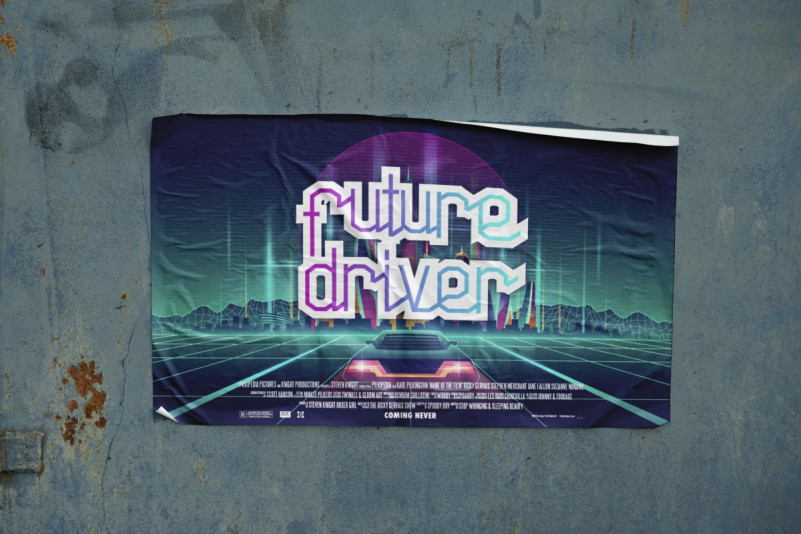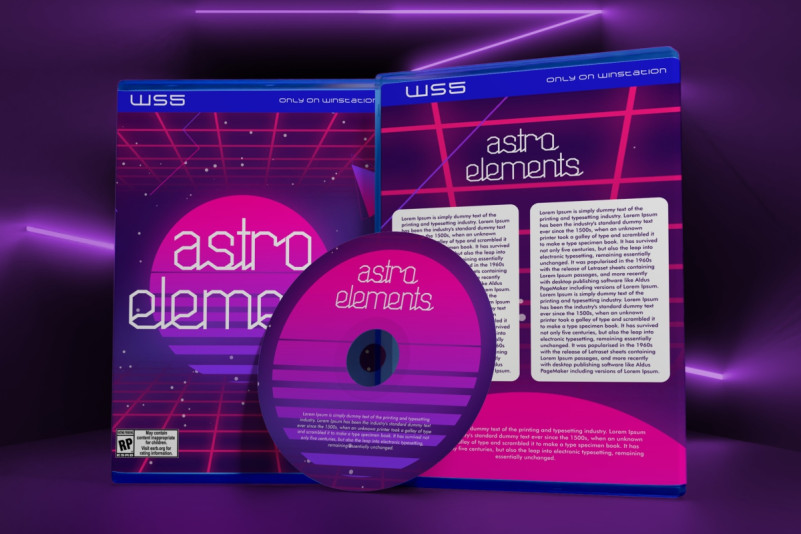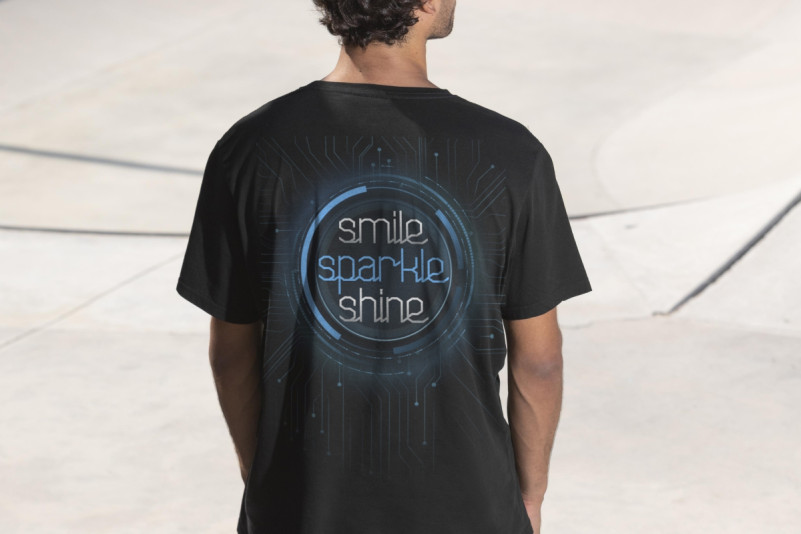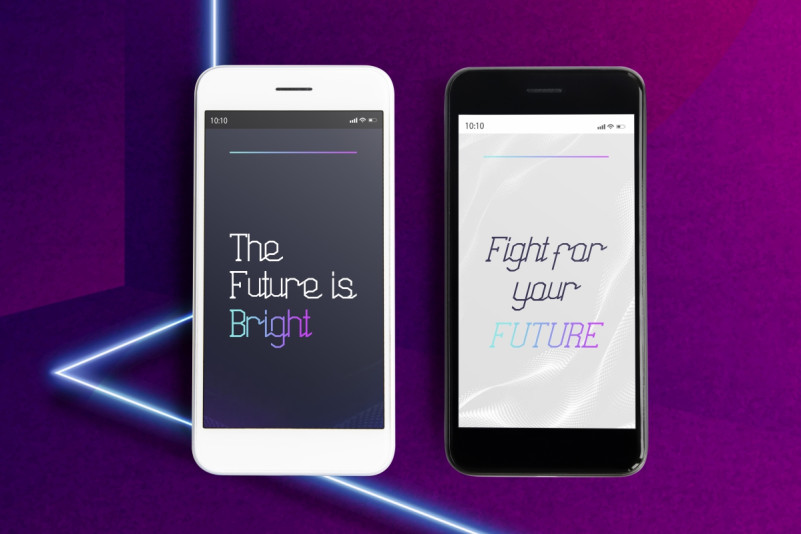
Basic Robot Display Font is a techno sporty and weird display font, created by VinType Studio. This font has two different styles, Regular and Italic, which will give your designs a different look. It will be suitable for many industries, such as automotive, café, fashion, festival, game, movie, music, printing, publishing, sport, techno. etc.
Basic Robot Font includes full set of one font size for Basic Character, Numerals and Punctuation. Also equipped with alternative characters to add the authentic of the designs you create, and are suitable for making such as apps, brochure, invitation, packaging design, poster, screen printing, signage, stationery, website, and more!